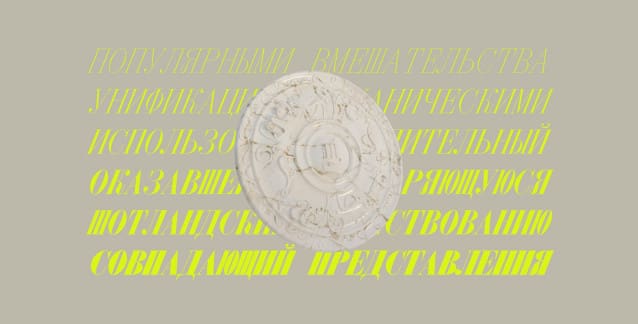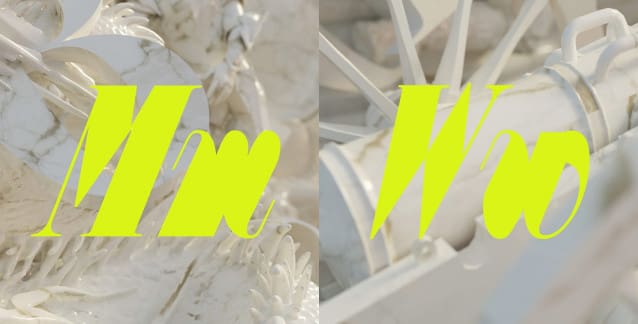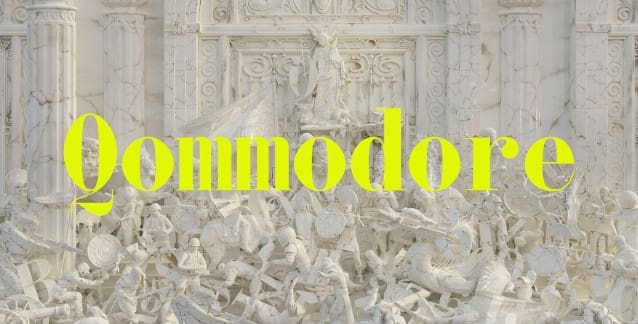
Qommodore Font Family
Qommodore Font Family is a typeface better left uncategorized, being an amalgam of entirely different constructs to achieve a new and experimental texture. Born out of the creative encounter between Hugues Gentile and Jean-Baptiste Levée, Qommodore Font is the merger of their common interest for monospaced serif. Even its name introduces a wholly twisted operation that challenges convention at every turn.
That makes it difficult to start at the beginning, because Qommodore Font is a high-contrast serif, drawn with the construction of 19th-century display types. But its proportions are monospace, forcing many of the natural widths of calligraphy, and the 19th century, out of the equation. Choosing the priority of which quality speaks first will come down to its use in graphic design.
There is a pervasive appreciation for high-contrast serifs, and Qommodore’s delicate and detailed hairline strokes are no exception. Like most typefaces in this genre, Qommodore Font gains weight only in its thick strokes, and the hairlines stay hairlines throughout. Despite the ubiquity of the high-contrast category, however, Qommodore Font restricts any dated notions. Breaking with convention, for example, the typeface comprises six weights, beginning with a skeleton frame in ExtraLight that will feel wider than its bolder weights simply because the thicker strokes aren’t prevalent. In ExtraBold, Qommodore Font is practically egregious in its contrast; because the font is monospace, the thick strokes borrow from the interior space, creating a dramatic and glitchy texture.
All-capitals titles will set beautifully as small as 60pt in ExtraLight and set a more traditional tone, with a narrow letter-fit and modern classic details. As you increase the weight, increase the scale, and drop the character count – it’s the best way to maintain comfort in reading while enjoying all of the quirky details to make designs feel unique and beautiful, unless you’re going for something with intentional tension.
That’s precisely the opportunity this typeface invites designers to enjoy – an unpredictable mashup of details like the intricate serifs on lowercase t and the graceful ß, with spatial discordance increasing with weight. Despite this experiment in spacing, one thing Qommodore avoids is any clashing of characters, instead just threatening legibility. These moments where one would expect discomfort get literally shaved off, such as in the ExtraBold Italic, where the rounds of characters abruptly stay in their allotted space. In these most dramatic moments of Qommodore, designers can amplify short words and even single characters for applications in media covers like albums, podcasts, and books. Check out its eponymous Q, stifling bold W and Extra Bold m, and corseted R; conversely, the shapely lowercase a and even the delightful punctuation.